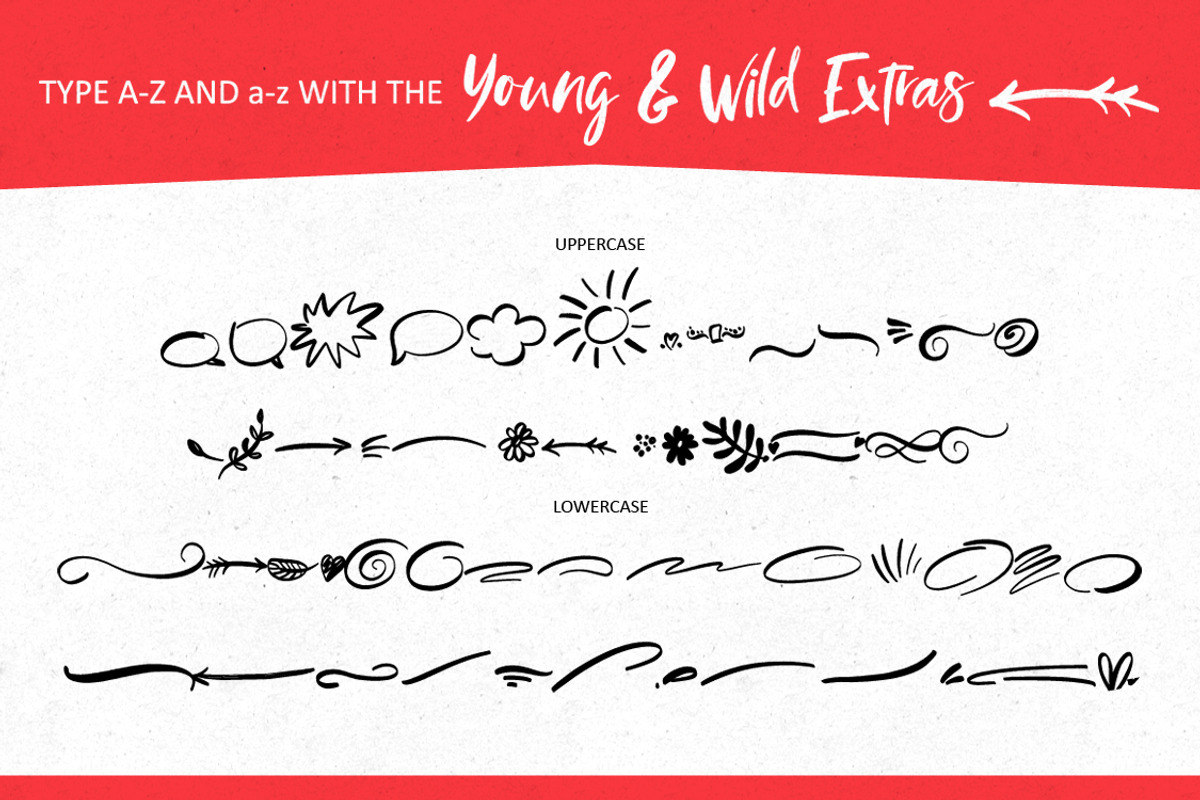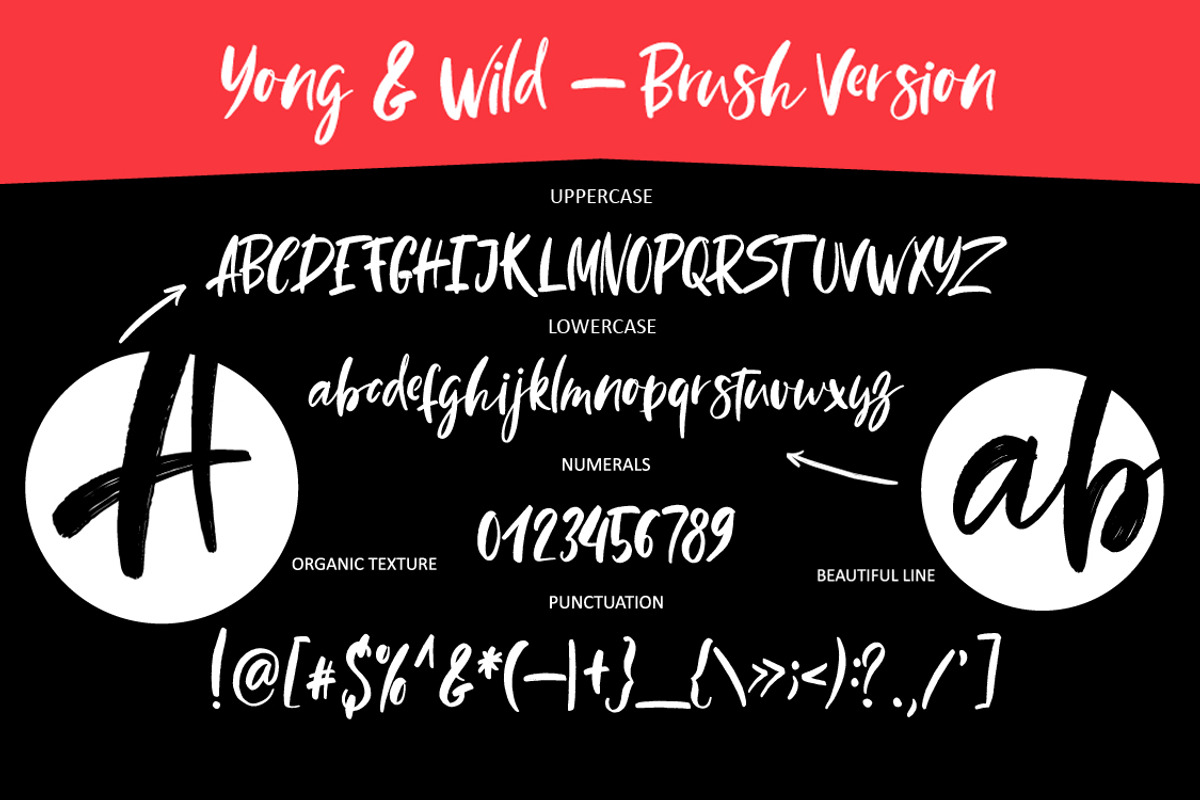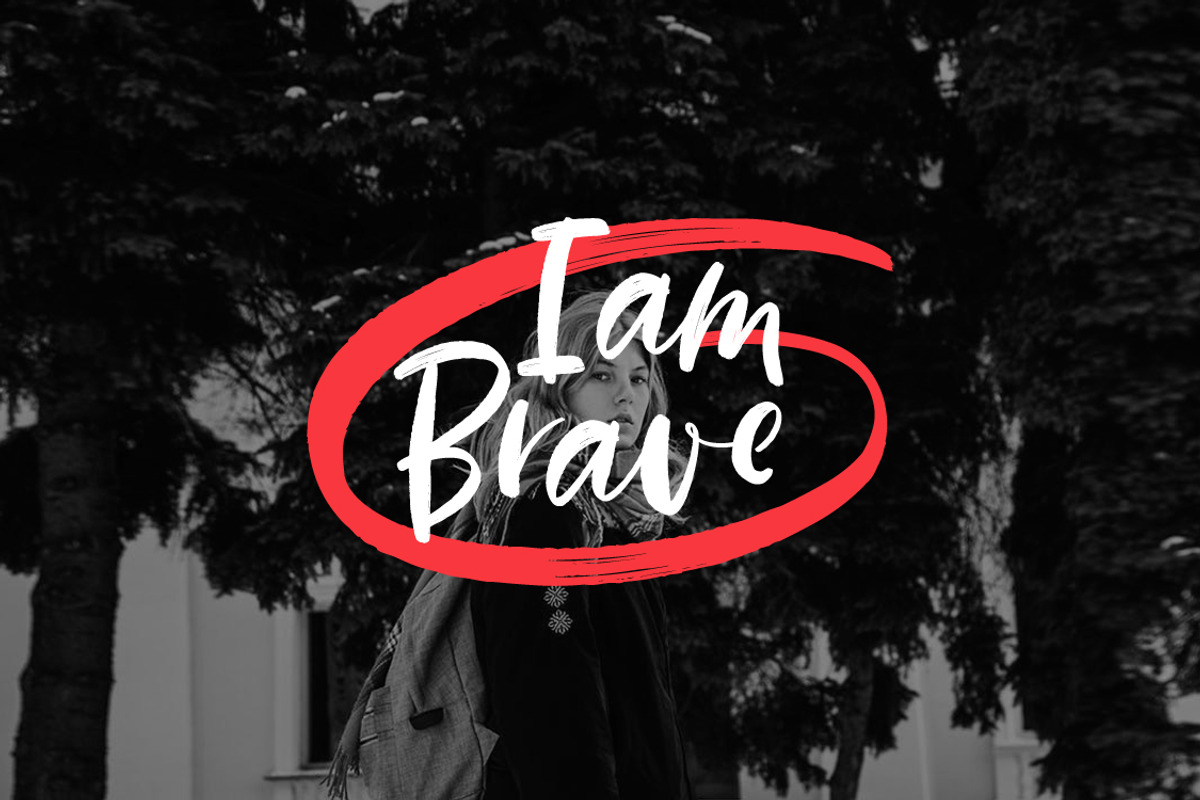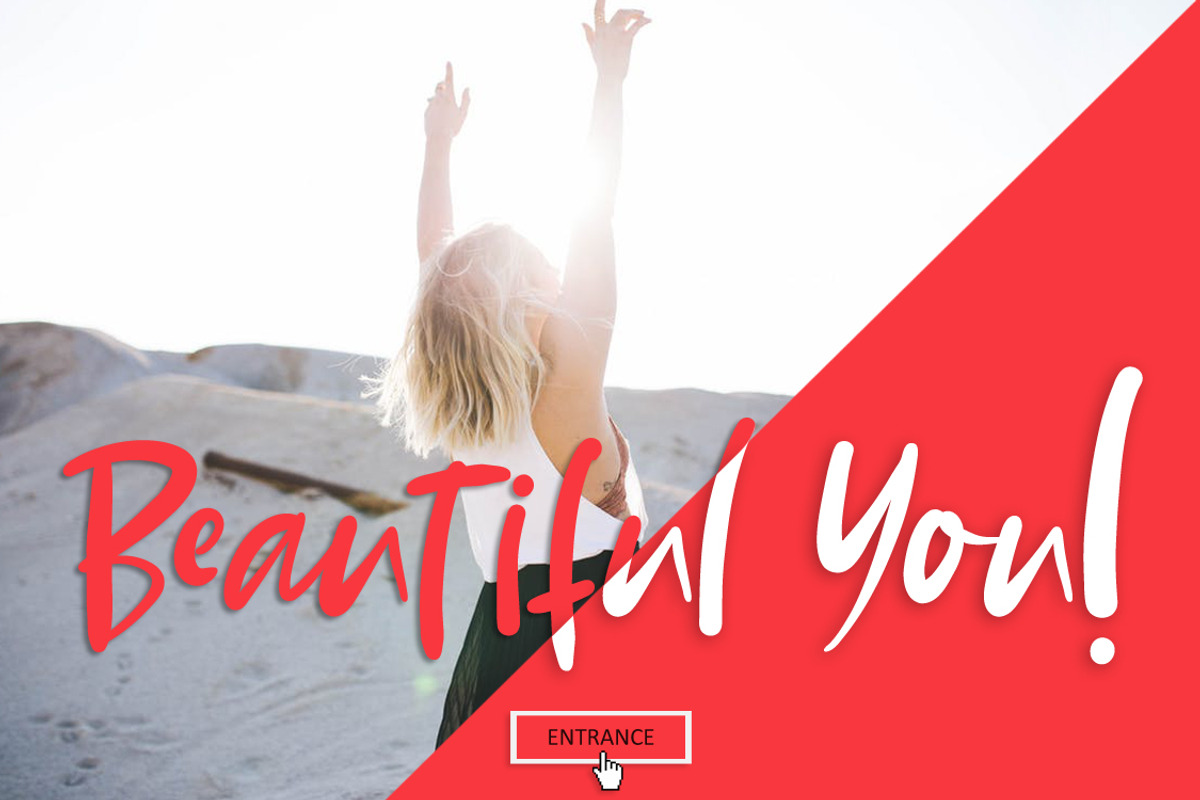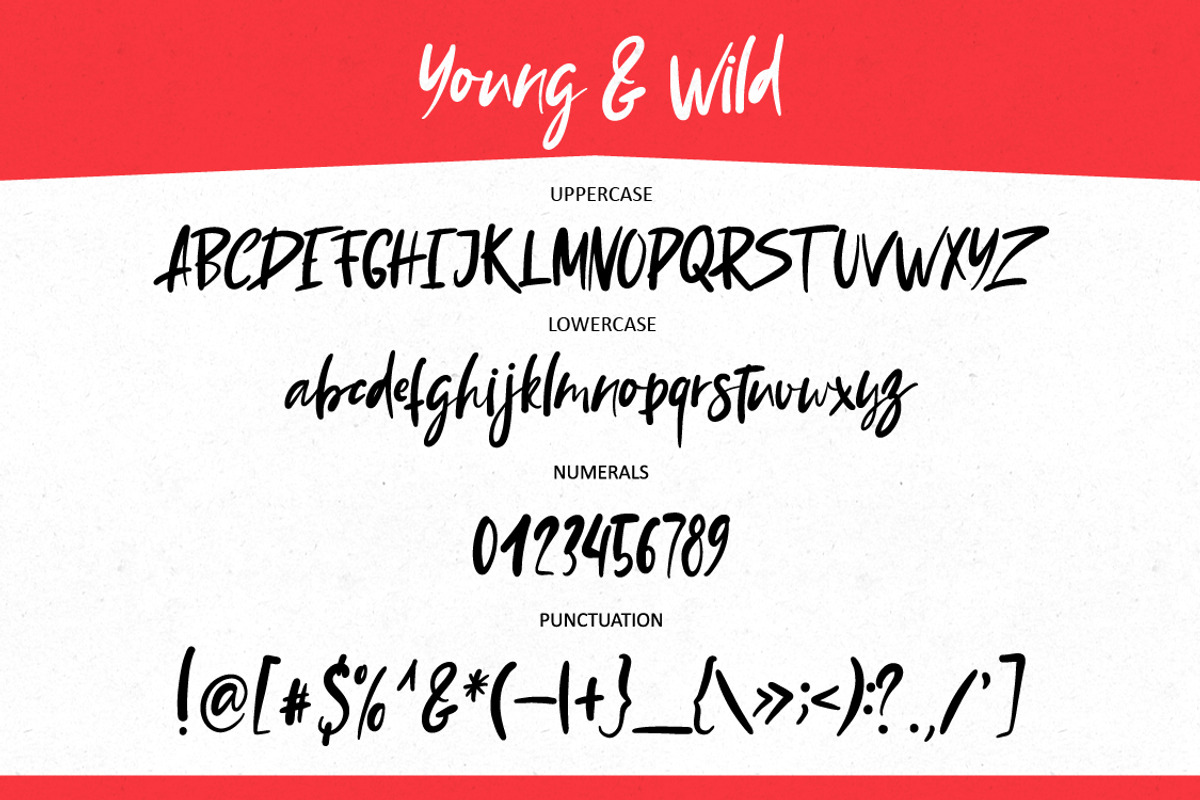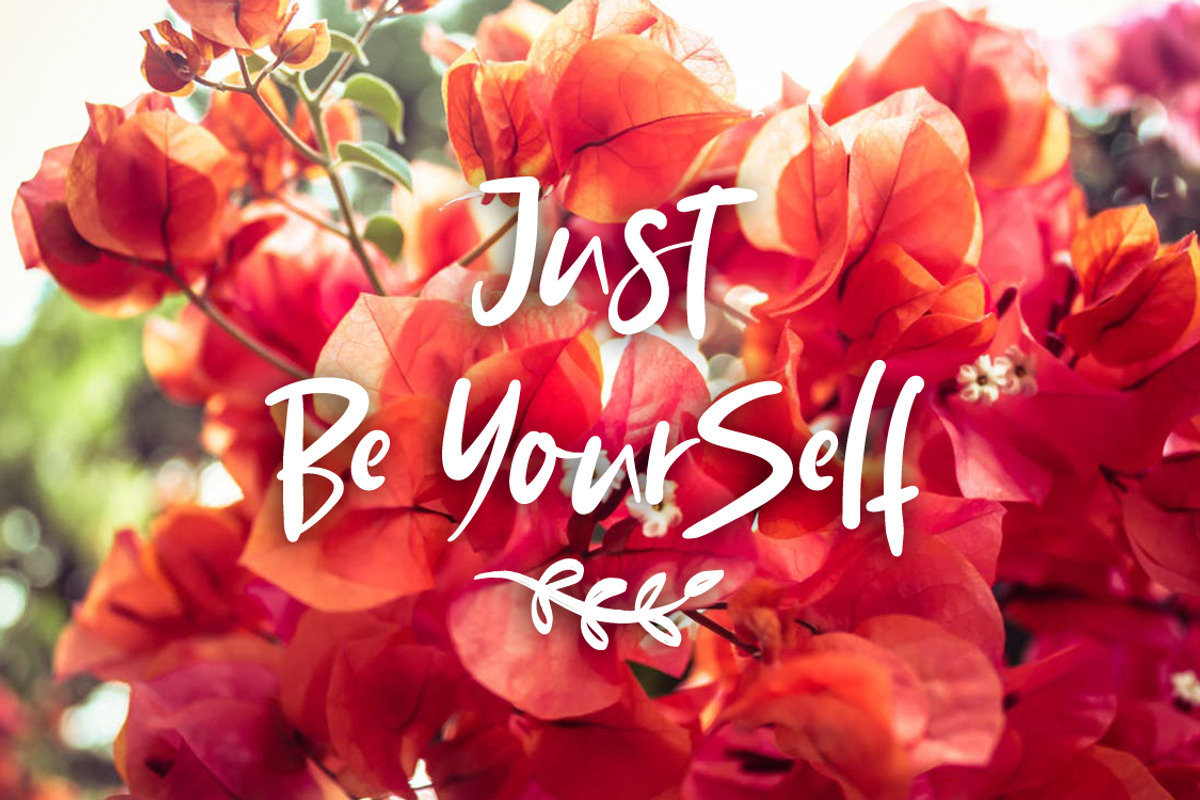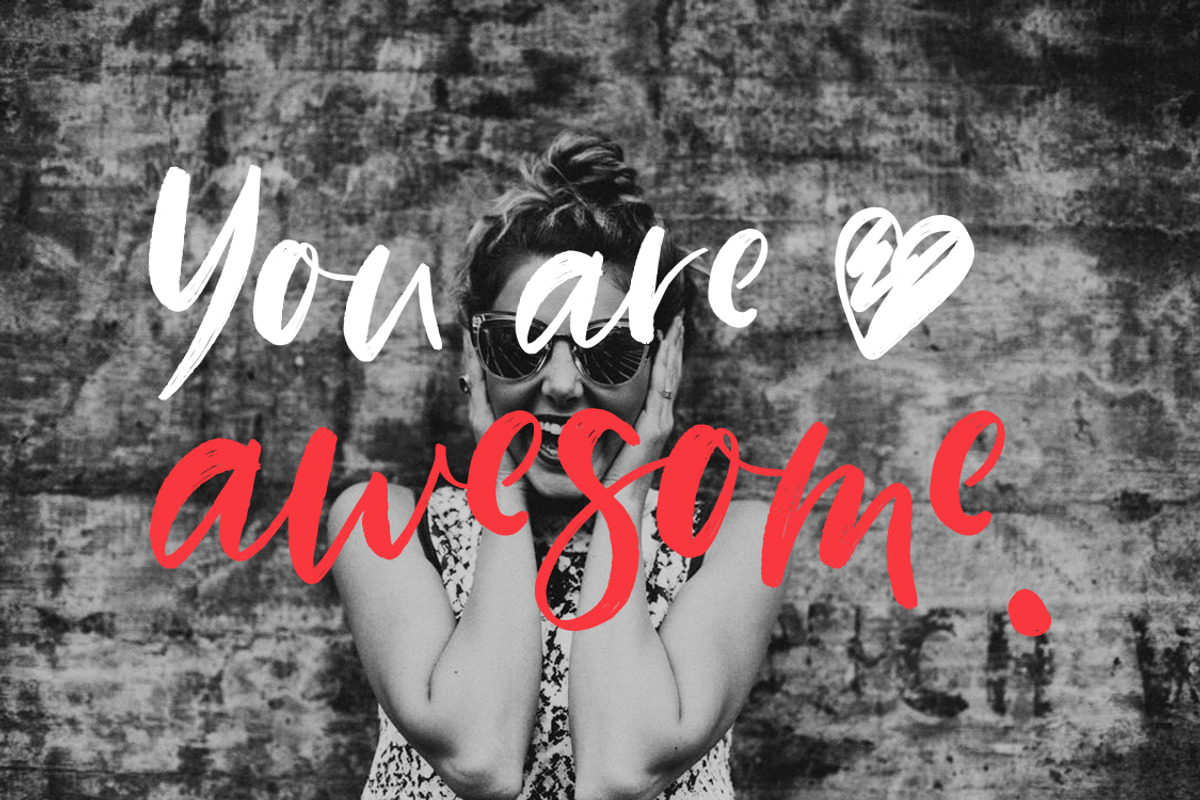
NEW! Young & Wild Brush Font
Hello! I want to introduce to you my new font Young & Wild.
Young & Wild - clean version of the font;
Young & Wild Brush - very textural brush version of the font;
Young & Wild Extras - arrow, a variety of strokes, conversational clouds, flowers and many other elements for your design.